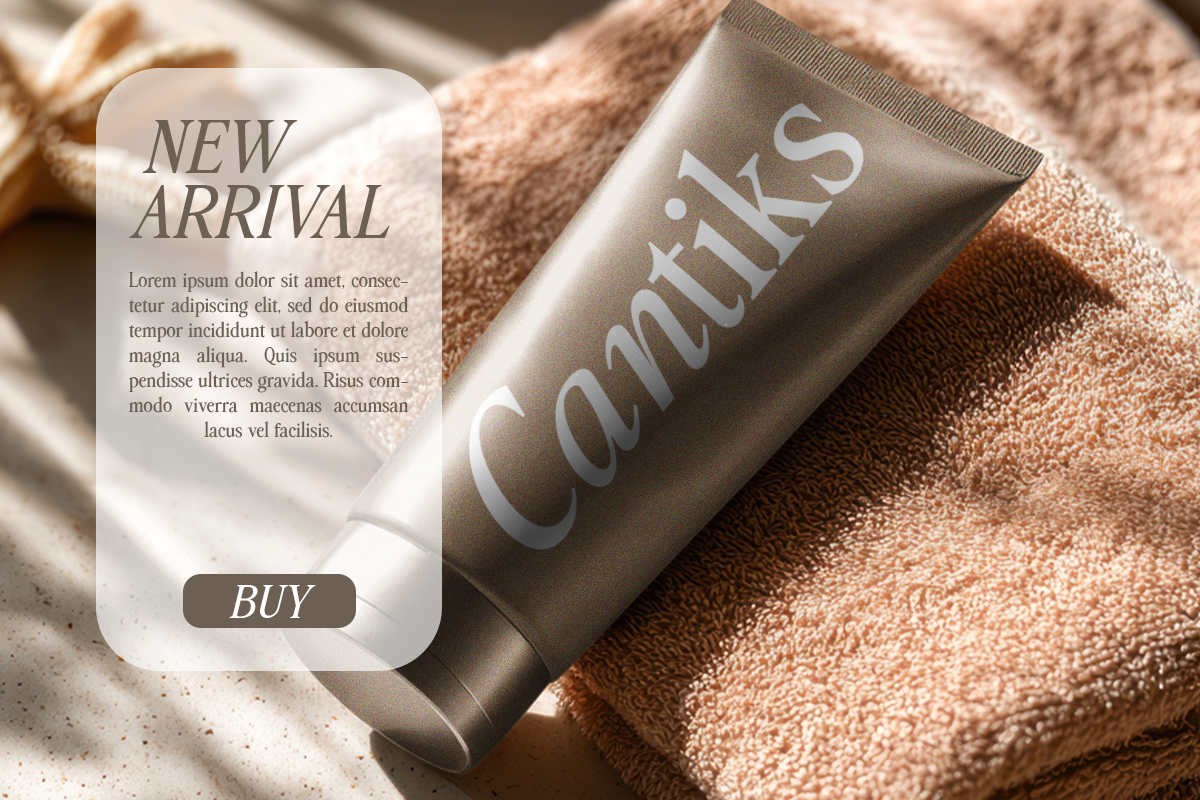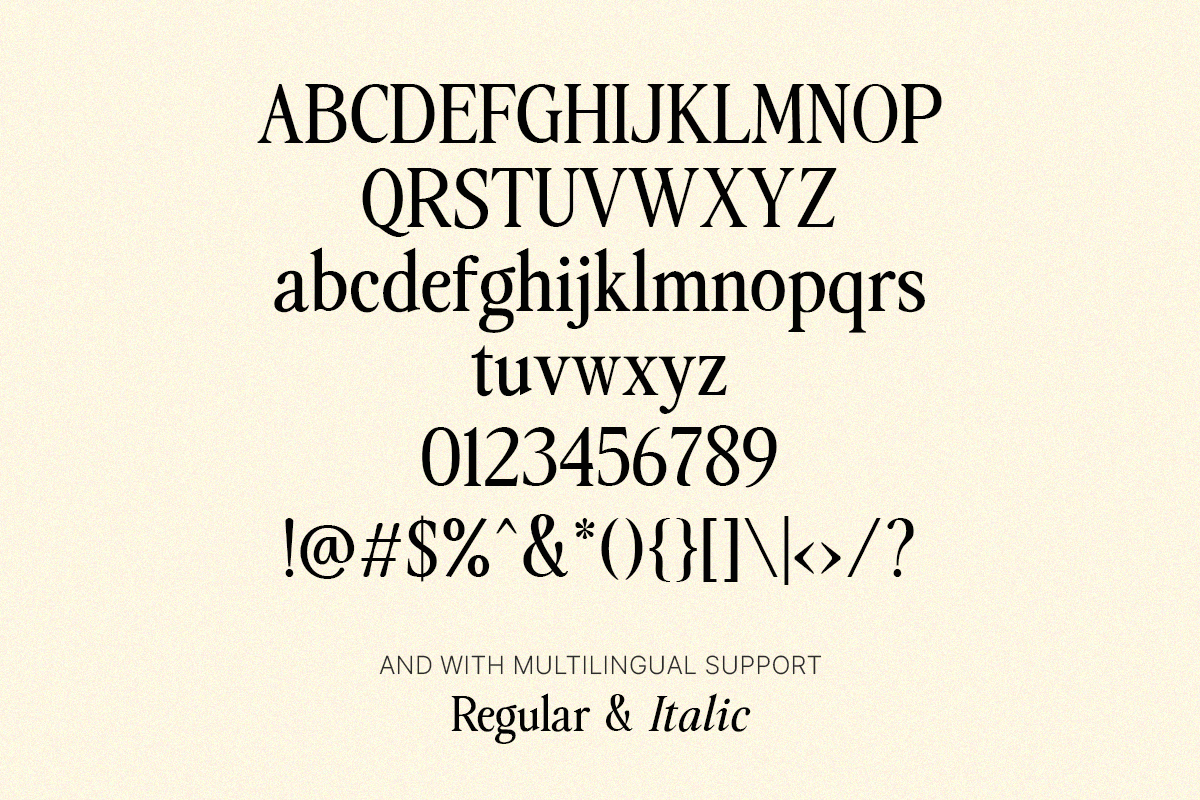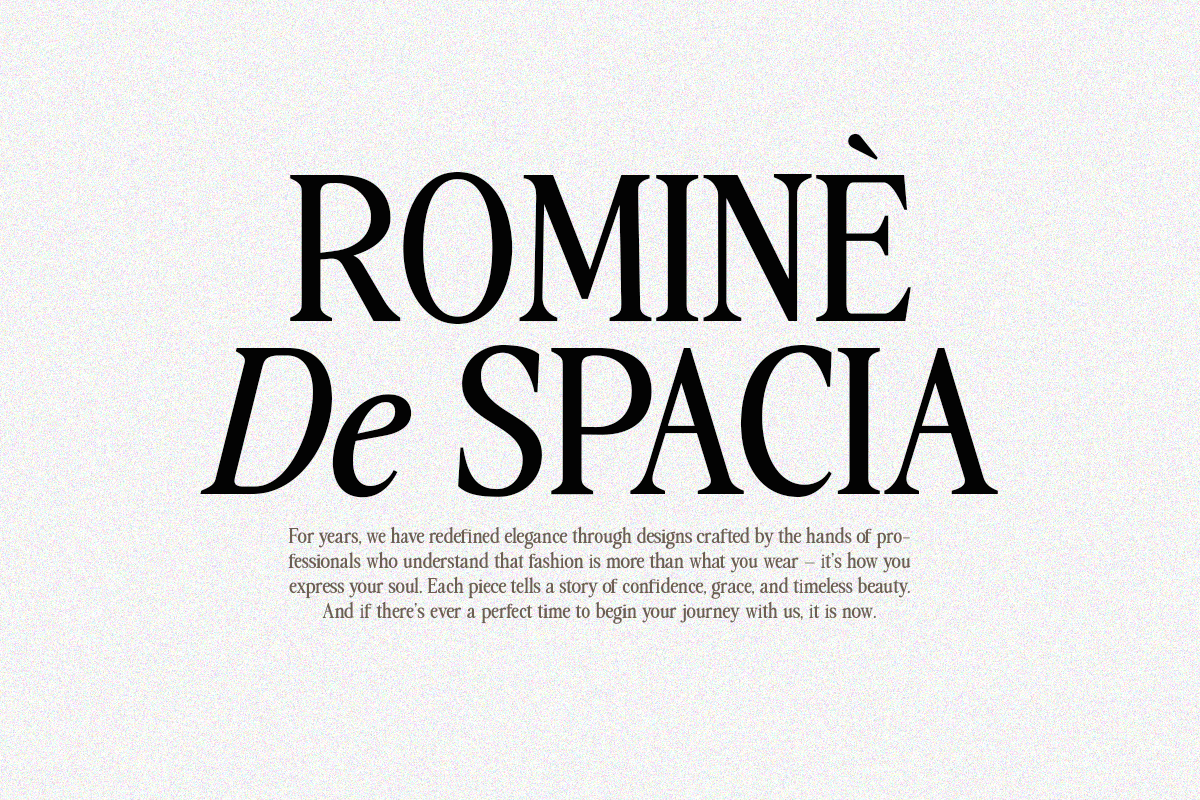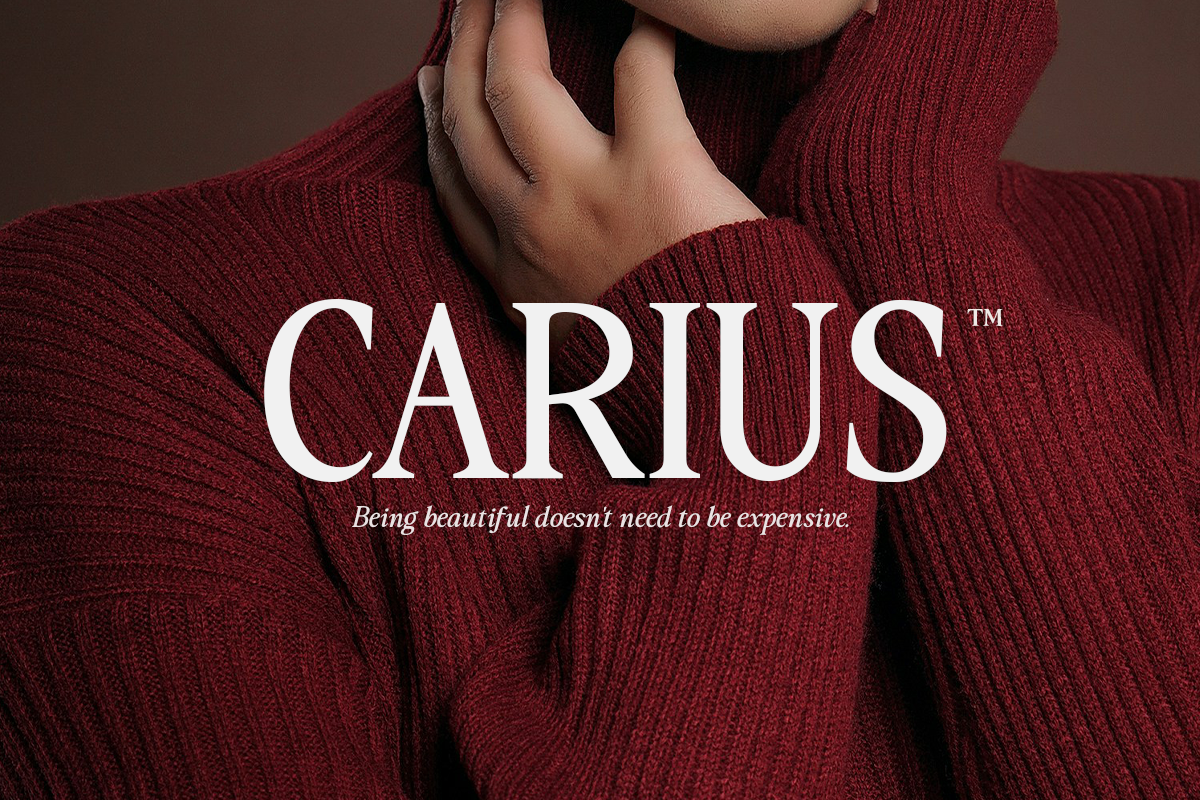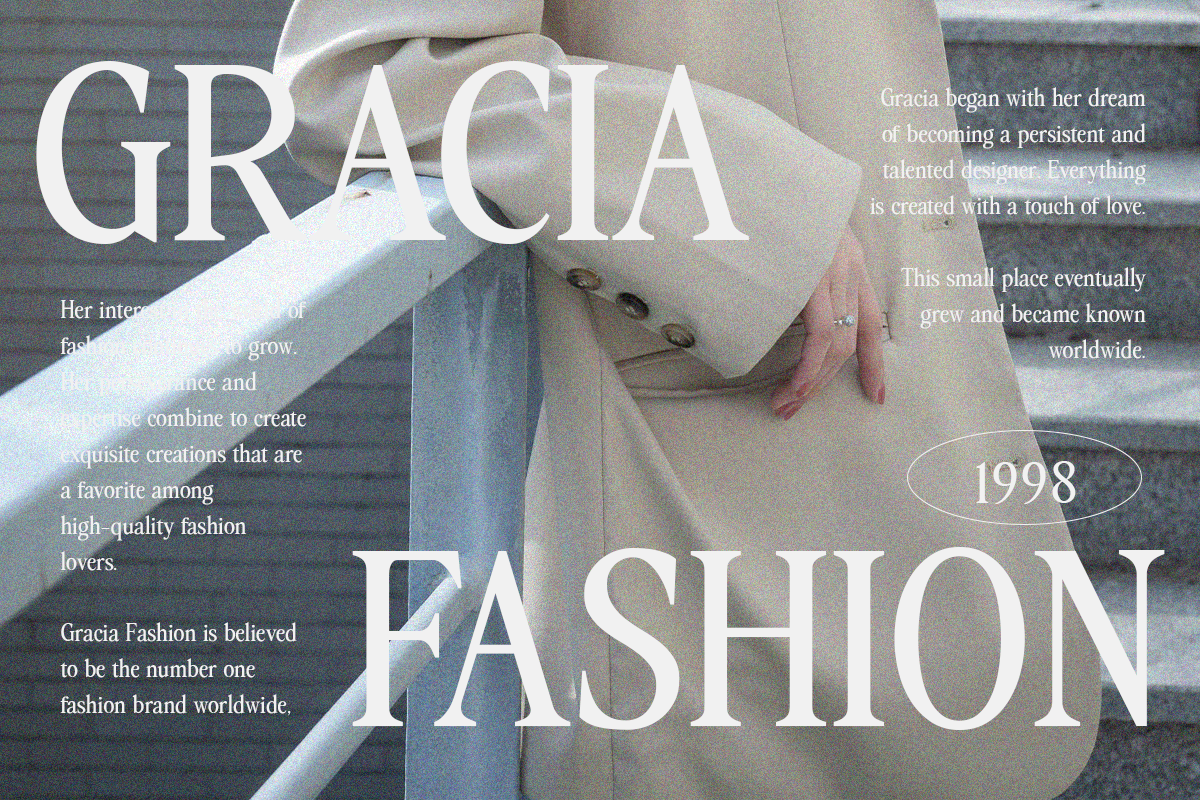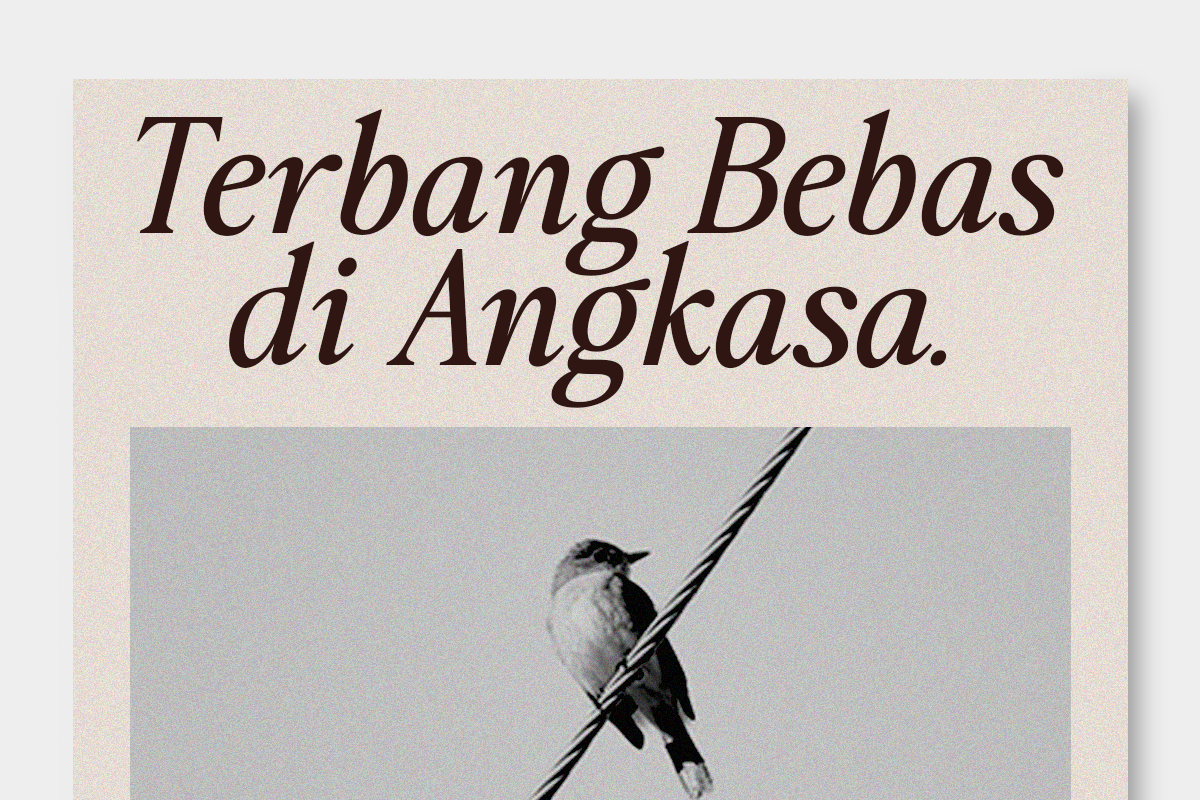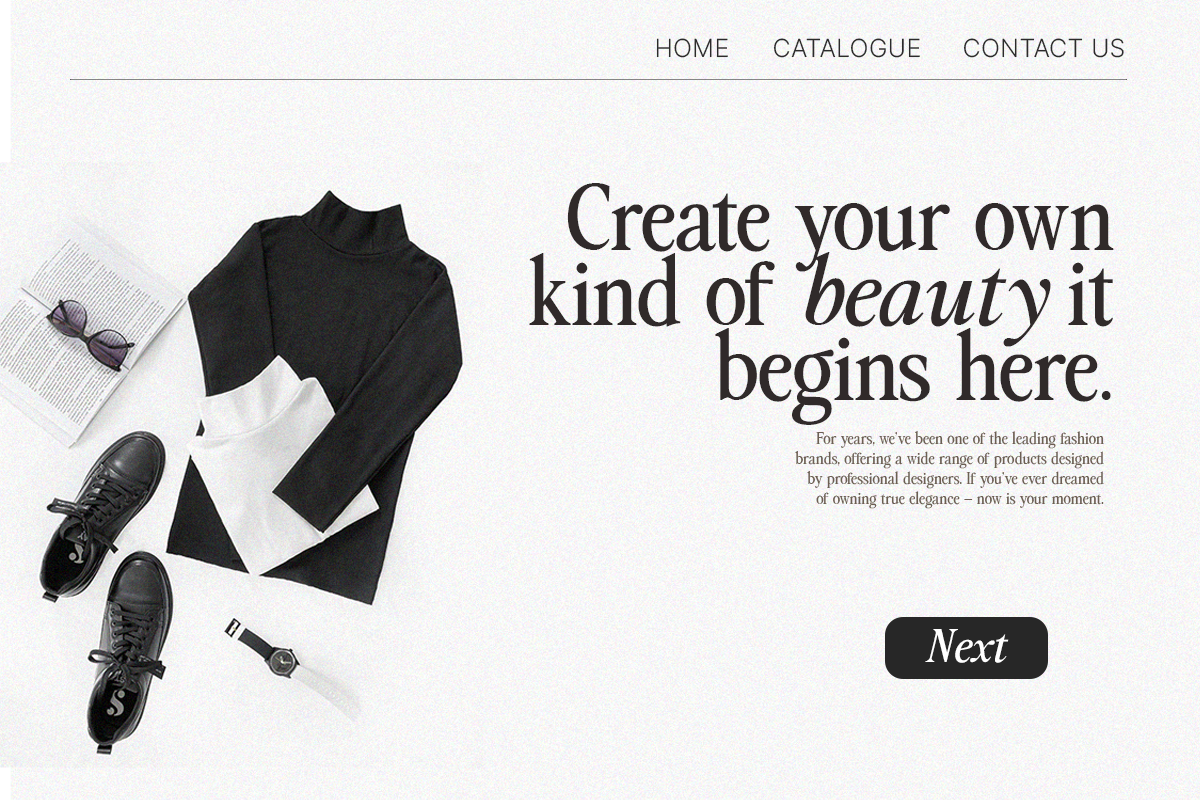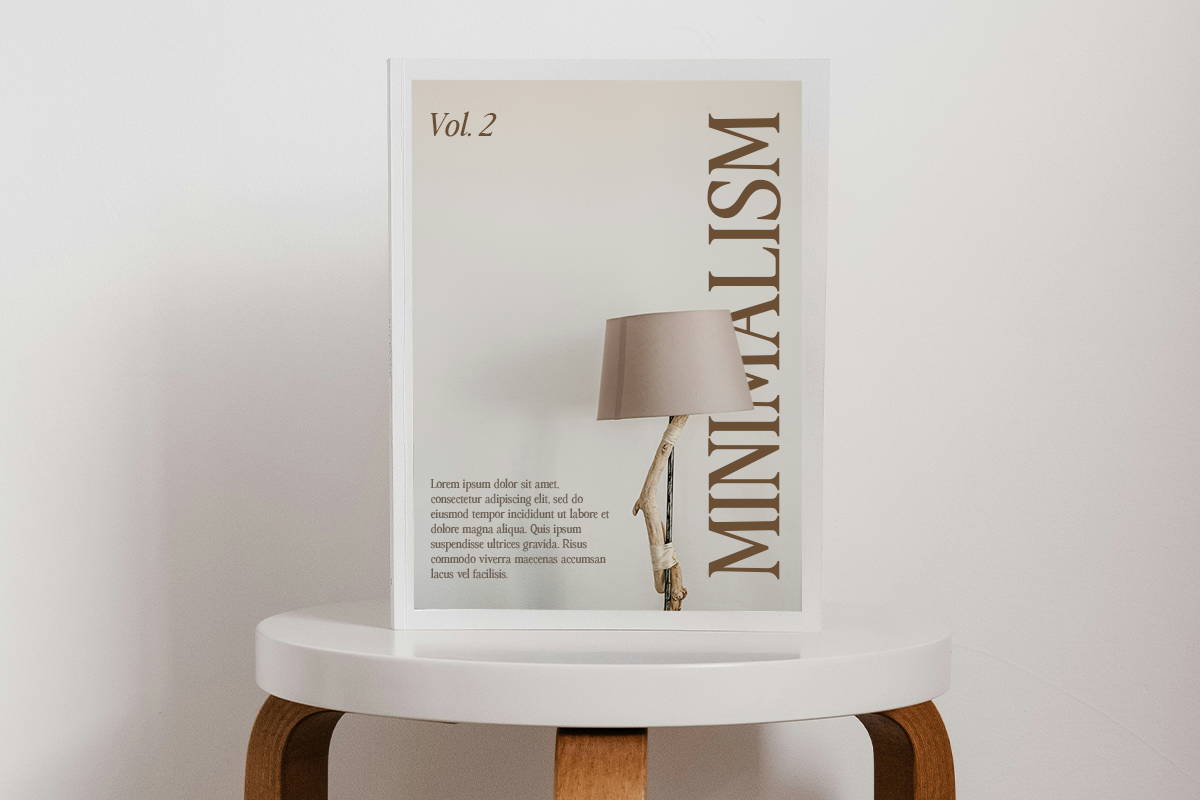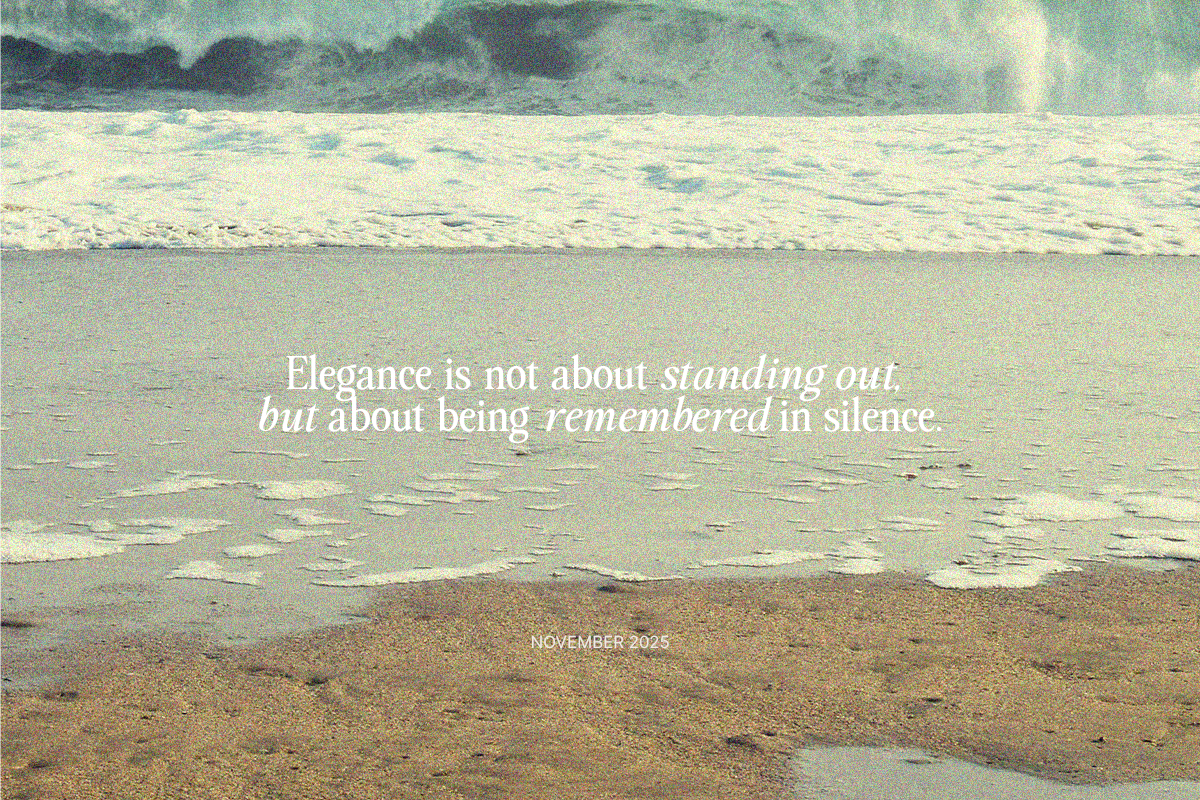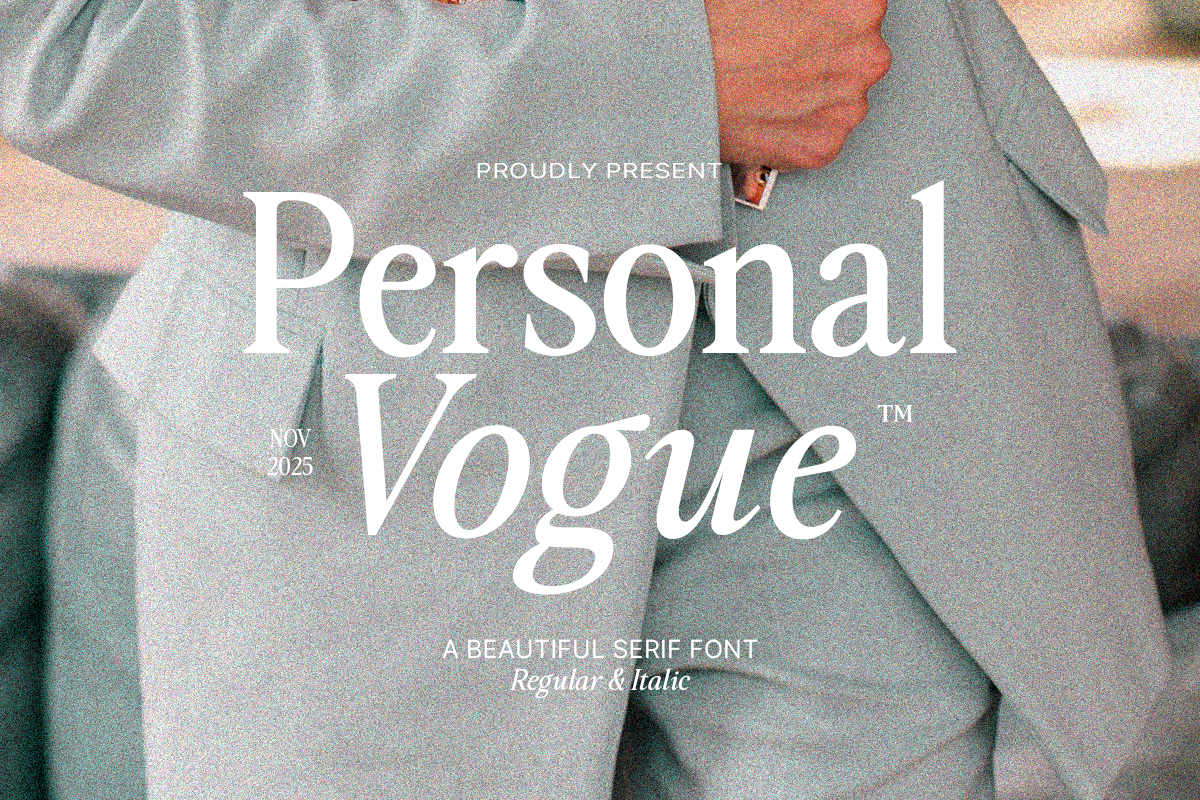
Personal Vogue
Personal Vogue is a serif typeface that embodies elegance and quiet confidence. Crafted with refined letterforms and graceful contrast, this font is designed to elevate any high-end visual identity. From fashion editorials and cosmetic packaging to minimalist branding and inspiring quotes.
Available in two styles: Regular and Italic it offers versatile options for pairing and composition. Whether you’re designing a brand logo, creating magazine headlines, or crafting elegant social media content, Personal Vogue adds a timeless touch of sophistication.